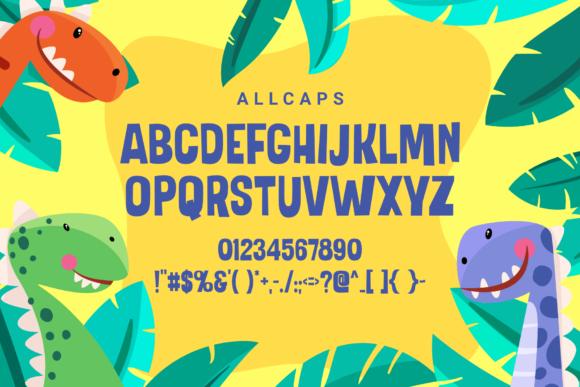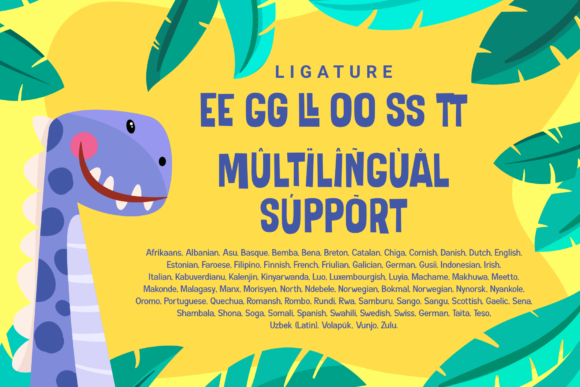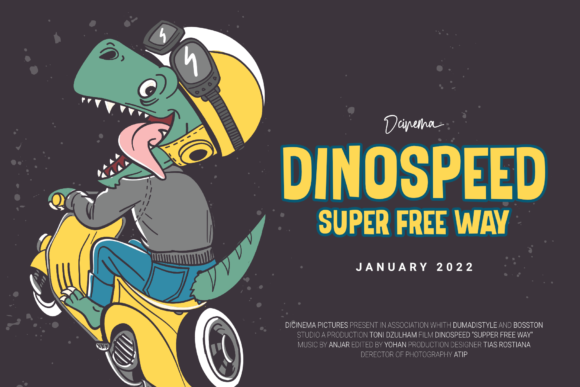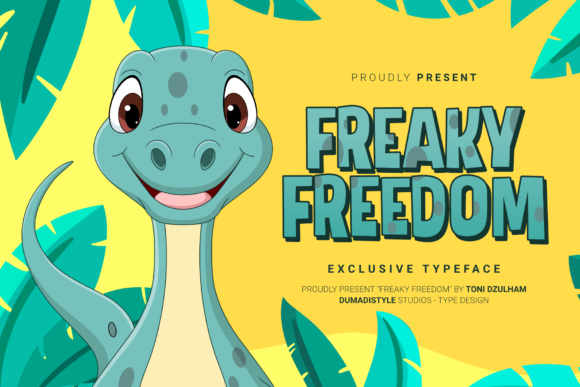
Introduction to Freaky Freedom Font
Freaky Freedom is a cool, bold and thick lettered display font.
Whether you are using it for cartoon-related designs, children games, quotes, titles, brand names, book covers, posters, or just any creation that requires a touch of joy, this font is a great choice .